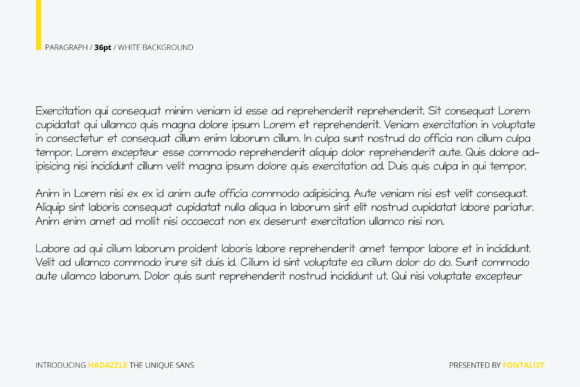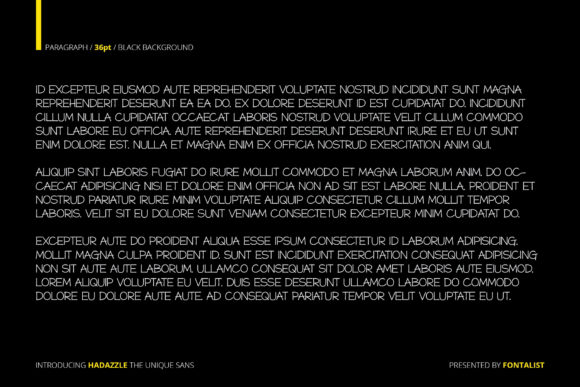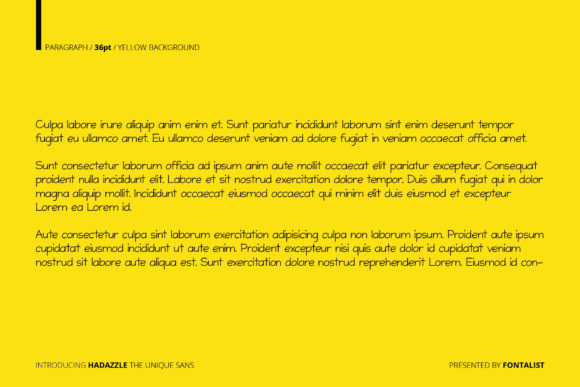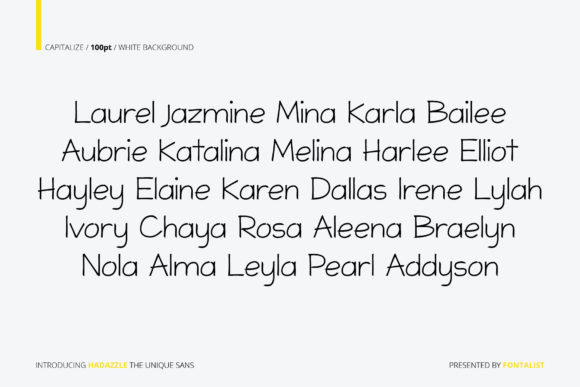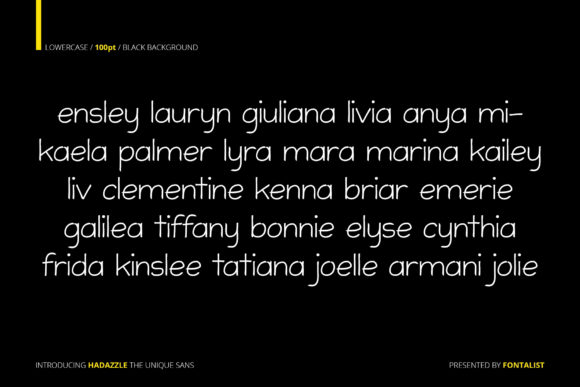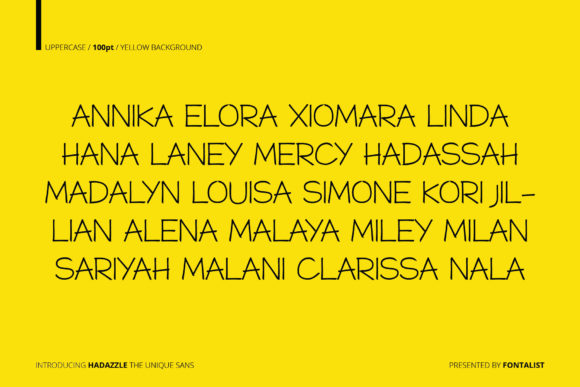
Introducing Hadazzle Font: The Ultimate Sans Serif for Creative Projects
Are you on the hunt for a font that can elevate your creative projects to the next level? Look no further than Hadazzle Font, a minimal and neat sans serif font that’s perfect for a wide range of applications. With its clean lines and simple design, Hadazzle is an incredibly versatile font that can be matched to an incredibly large set of projects, making it a must-have for designers and crafters alike.
The Features of Hadazzle Font
So, what makes Hadazzle Font so special? Here are just a few of its key features:
- Minimal and Neat Design: Hadazzle Font boasts a clean and minimalist design that’s perfect for projects where simplicity is key. Its sans serif design makes it easy to read and understand, even at small sizes.
- Highly Versatile: Whether you’re working on a logo, brochure, website, or social media graphics, Hadazzle Font can be easily matched to a wide range of projects. Its neutral design ensures that it won’t overpower your content, allowing your message to shine through.
- Easily Readable: The clear and concise design of Hadazzle Font makes it easy to read, even for extended periods of time. This makes it perfect for body text, captions, and other applications where readability is crucial.
Using Hadazzle Font in Your Creative Projects
So, how can you use Hadazzle Font to elevate your creative projects? Here are a few ideas to get you started:
- Branding and Logos: Use Hadazzle Font as a primary font for your logo or as a secondary font to add texture and interest to your brand identity.
- Print Materials: Add a touch of sophistication to your brochures, flyers, and business cards with Hadazzle Font.
- Digital Media: Use Hadazzle Font in your social media graphics, website headers, and email newsletters to create a cohesive and professional look.
- Crafting and DIY Projects: Add a personal touch to your crafting and DIY projects, such as handmade cards, gift tags, and journal pages, with Hadazzle Font.
Tips for Getting the Most Out of Hadazzle Font
To get the most out of Hadazzle Font, here are a few tips to keep in mind:
- Experiment with Font Sizes: Don’t be afraid to experiment with different font sizes to add visual interest to your projects.
- Pair with Other Fonts: Combine Hadazzle Font with other fonts to create a unique and eye-catching look.
- Play with Color: Use Hadazzle Font in a variety of colors to add a pop of personality to your projects.
In conclusion, Hadazzle Font is a versatile and stylish sans serif font that’s perfect for a wide range of creative projects. Its minimal and neat design makes it easy to read and understand, while its highly versatile nature ensures that it can be matched to an incredibly large set of projects. Whether you’re a designer, crafter, or DIY enthusiast, Hadazzle Font is a must-have addition to your font library.